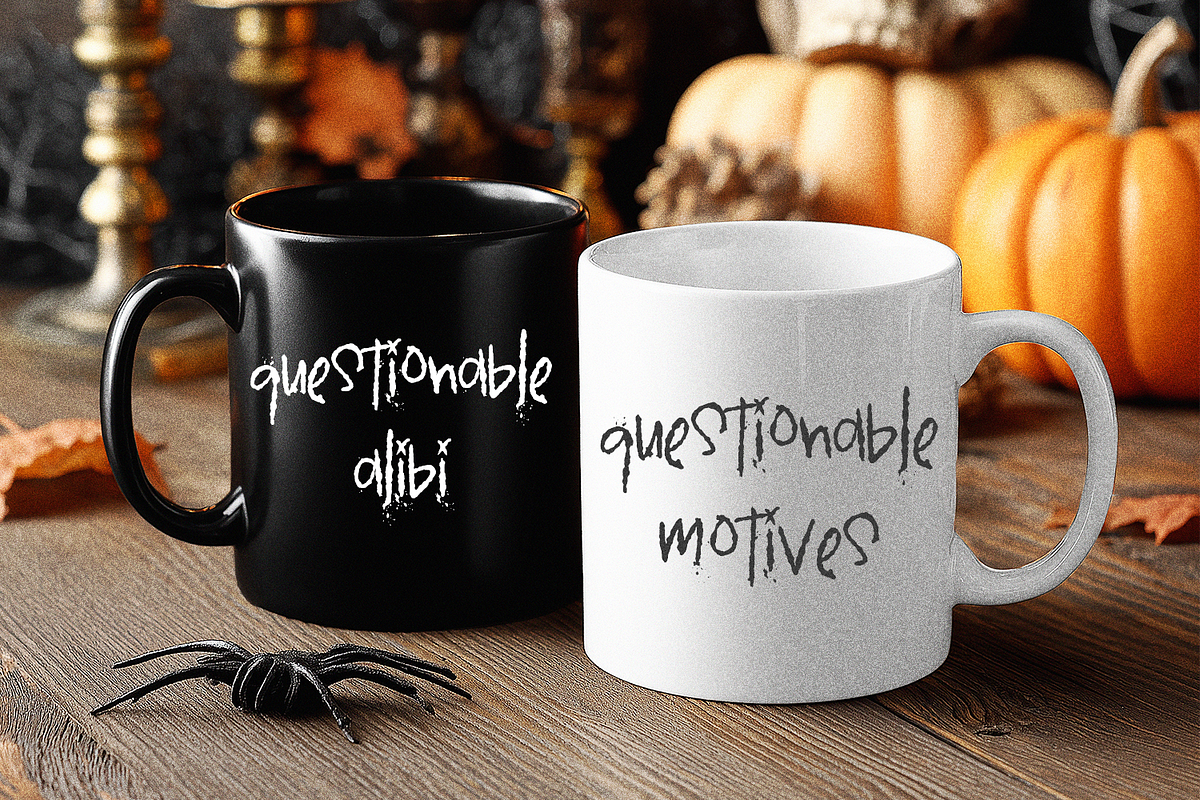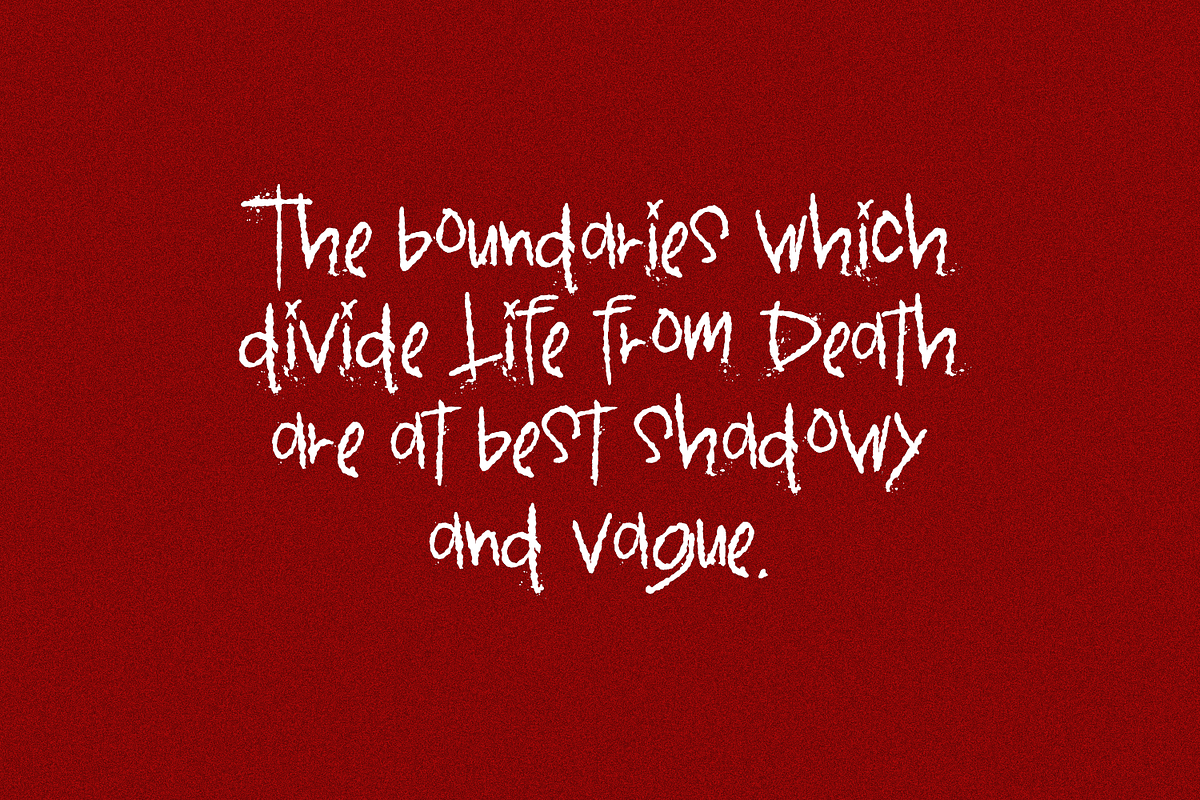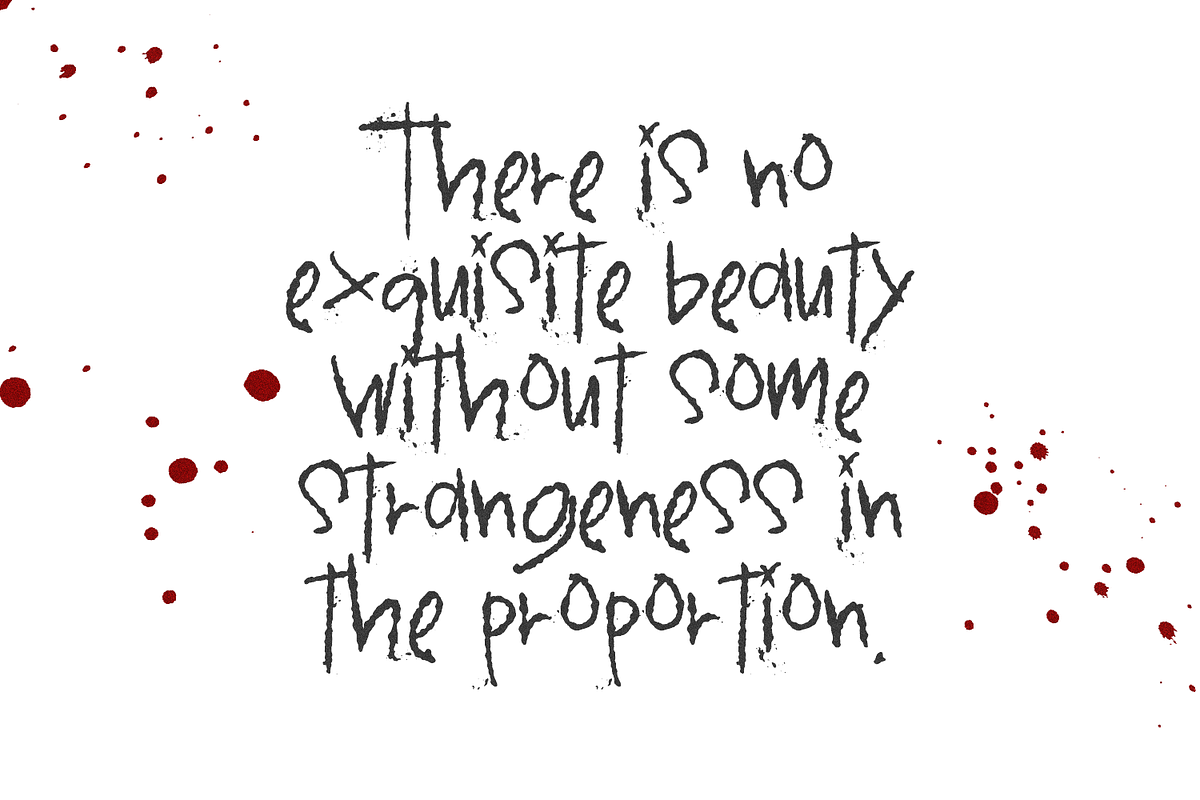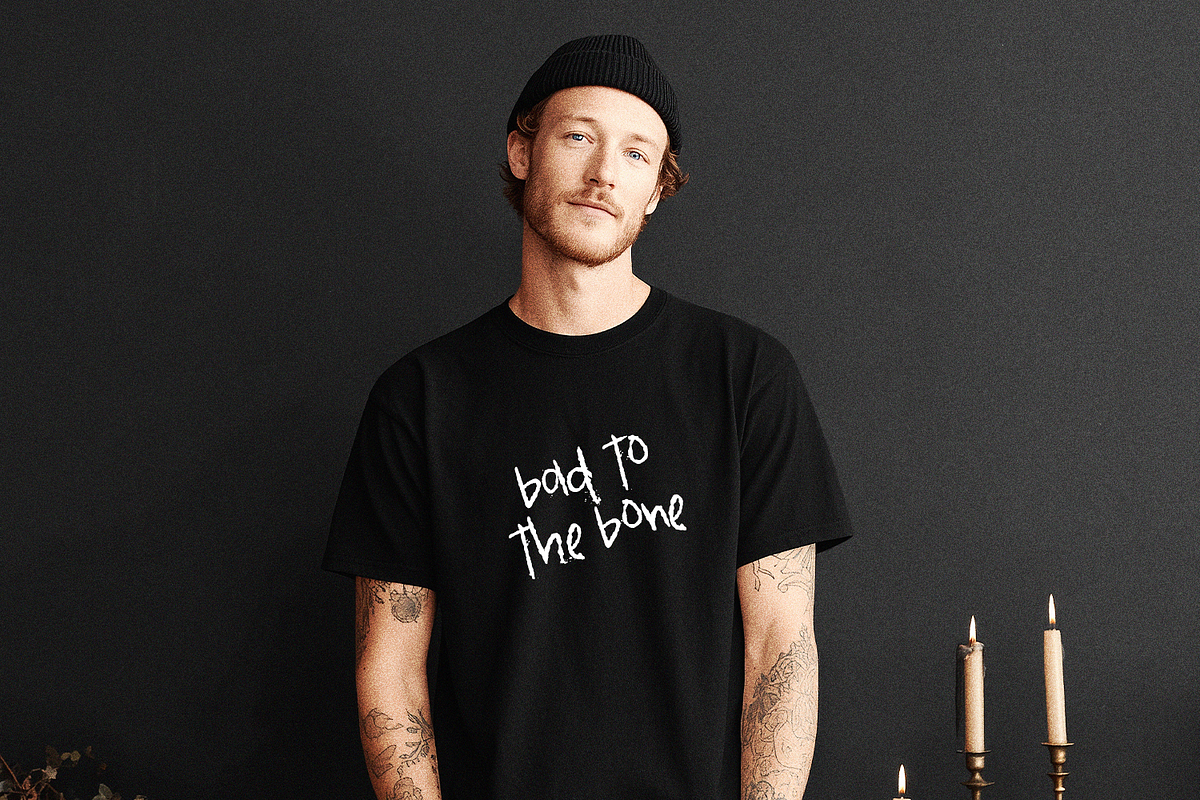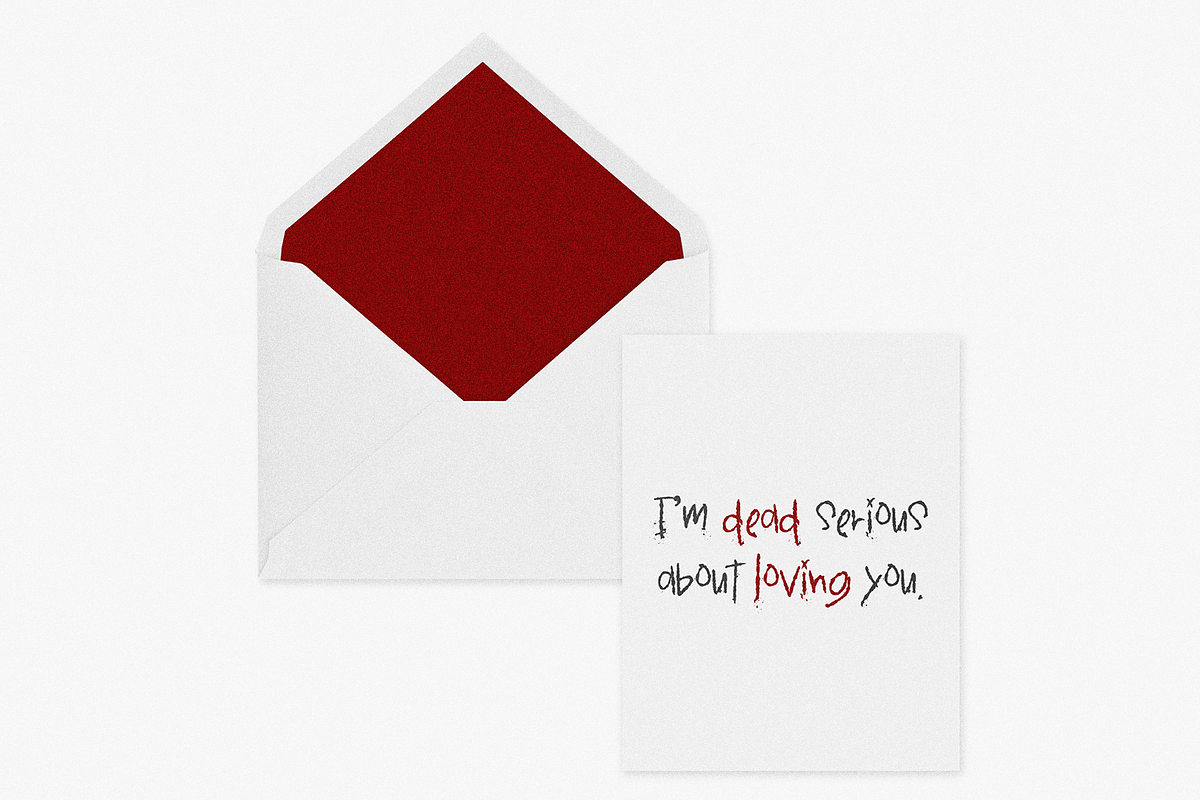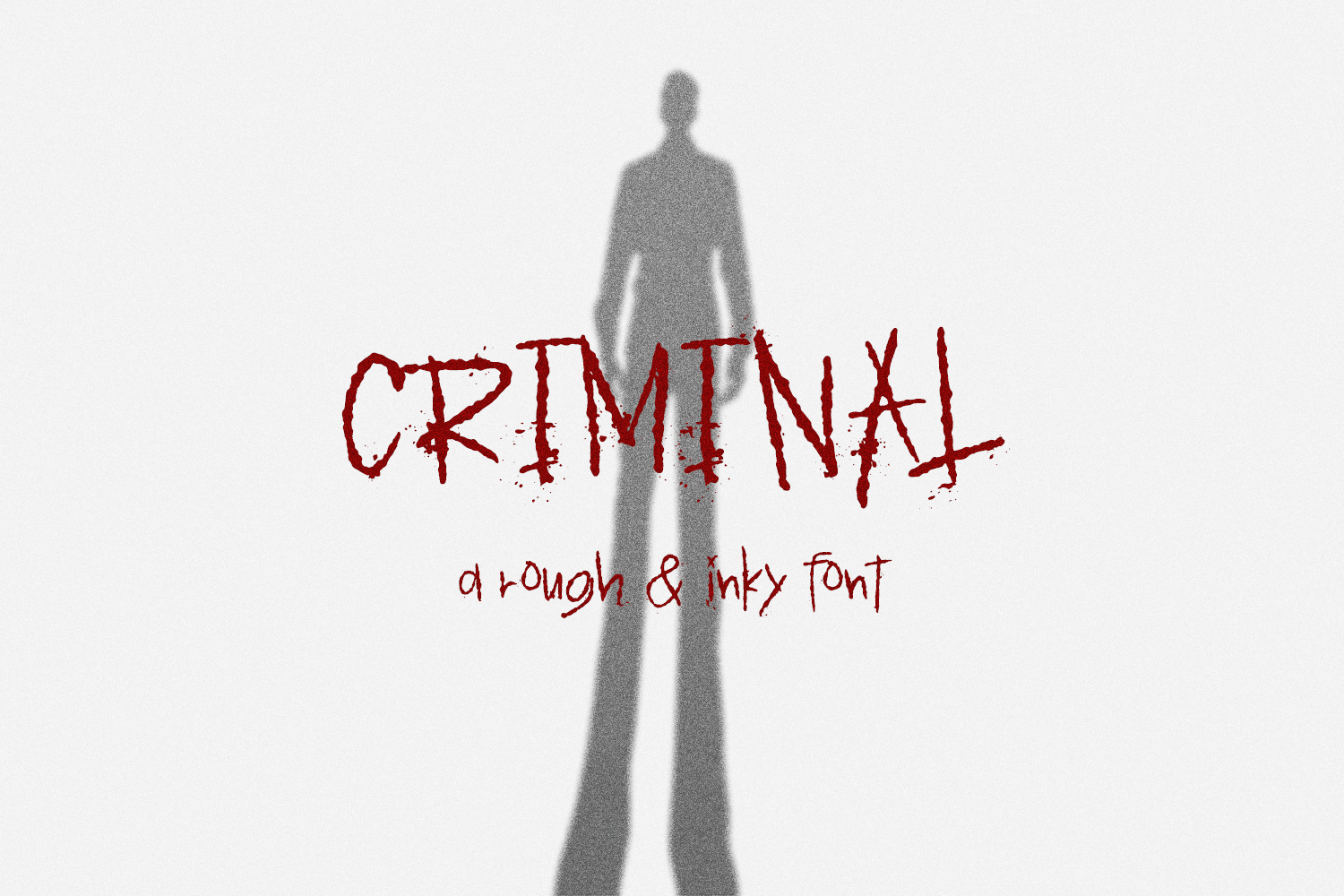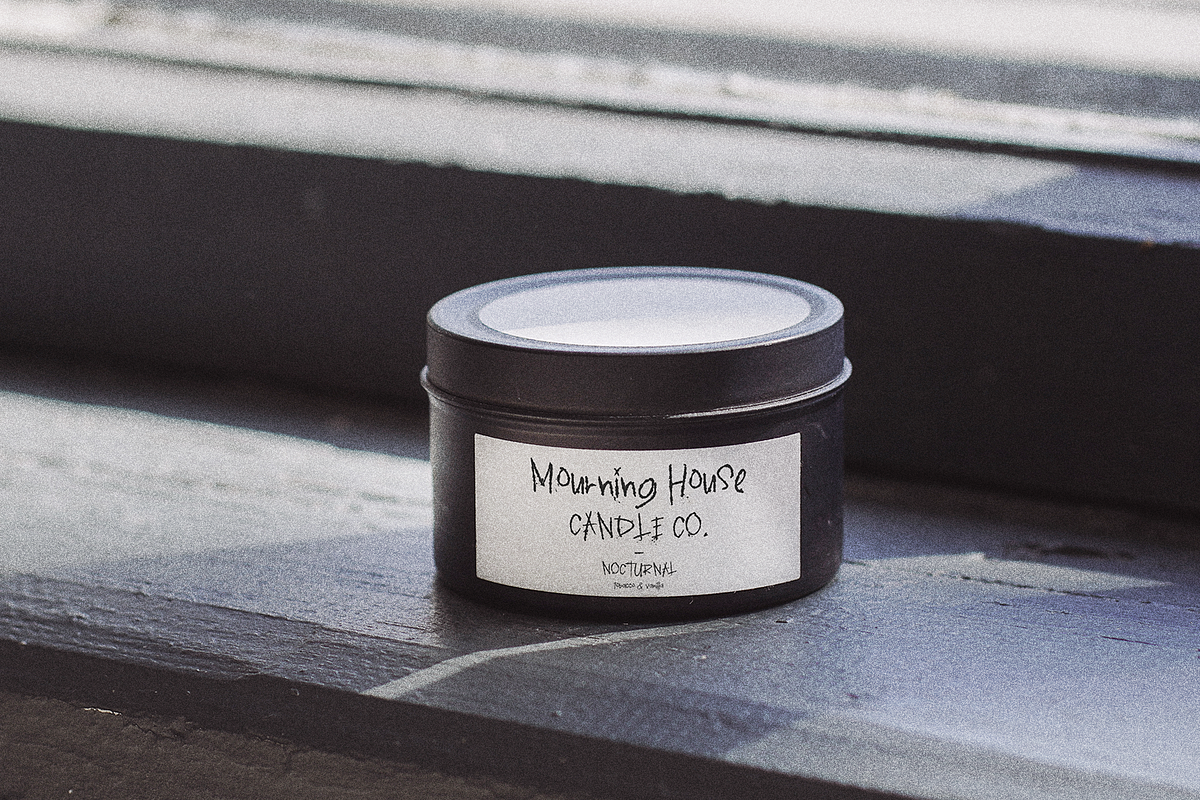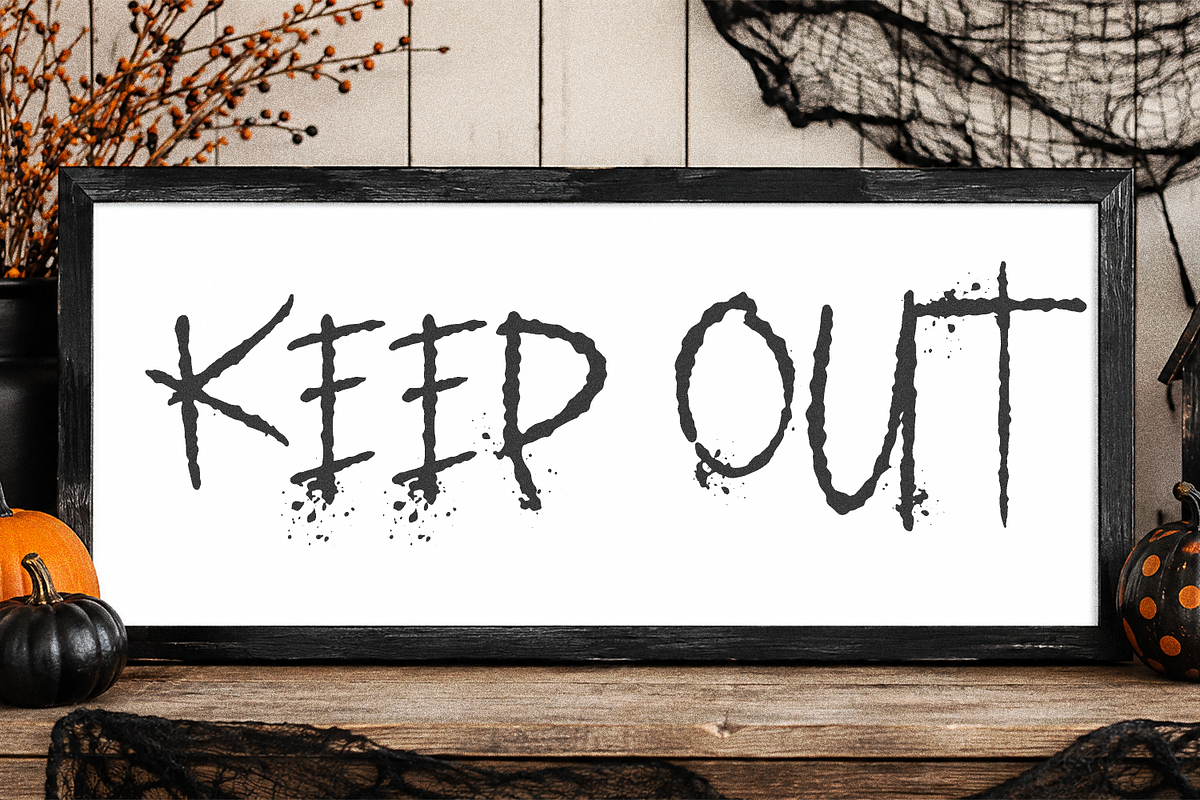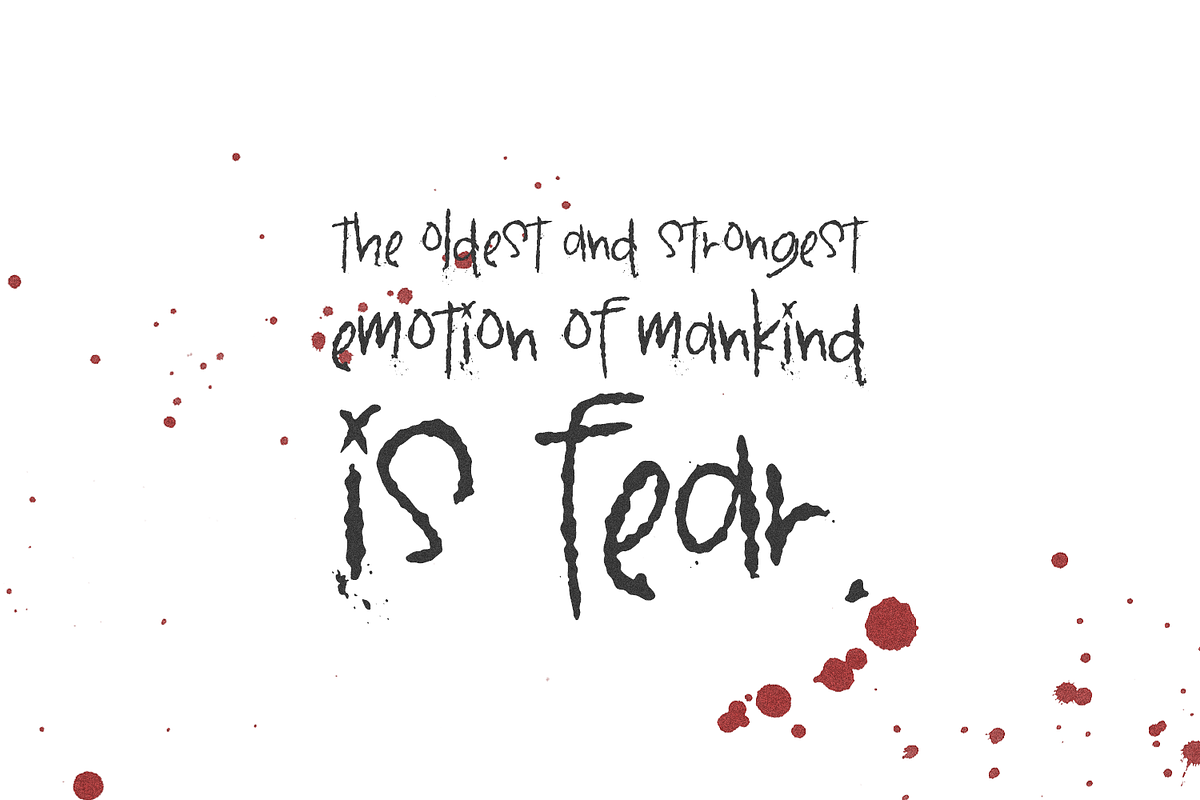
Criminal Display Font
Criminal Display font is a heavily textured, scratchy font that includes ink splatters. Criminal was inspired by true crime and psychological horrors. I’m obsessed with true crime podcasts, so it’s probably not a secret that I’d absolutely die (no pun intended) if this font was used for podcast branding. Criminal is a great fit for horror movie type graphics & posters, darker branding, and more. Use for logos, printed merch, product packaging, or quote graphics. Since Criminal is heavily textured, it’s best suited for print and digital applications and not vinyl cutting - definitely print & cut on this font, y’all, it’s going to be a cut & weeding nightmare.
Criminal includes:
- full upper + lowercase characters
- numbers + punctuation
- Western European language support - English, French, Spanish, Portuguese (Brazil), Portuguese (Portugal), Italian, German (Germany), German (Austria), Dutch, Danish, Swedish, Norwegian (Bokmål and Nynorsk), Finnish, Icelandic, Irish, Welsh